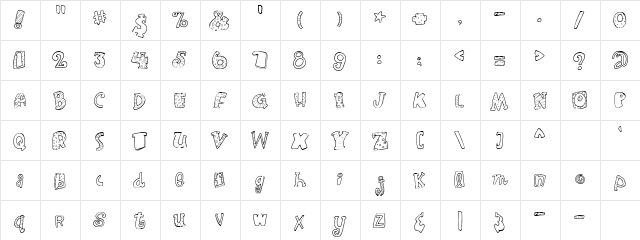
LD Jillustration Regular
Design Context for LD Jillustration Typeface
LD Jillustration is a composed and adaptable typeface that performs quietly and consistently across a wide range of design contexts.